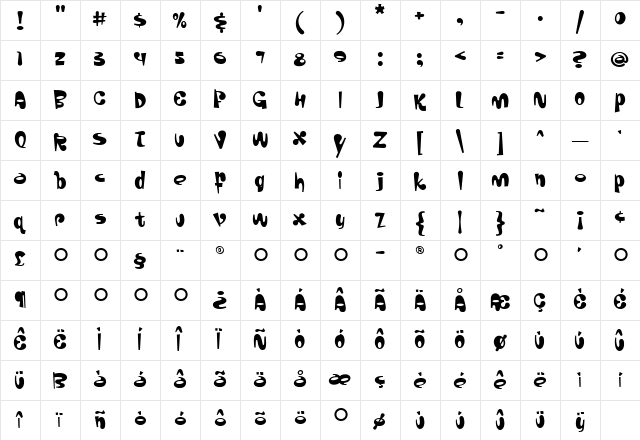
Roundhouse Medium
Design Context for Roundhouse Typeface
Roundhouse softens its letterforms with rounded terminals, giving it an approachable, friendly quality that works well in consumer-facing and digital contexts.
Well-suited to UI design, mobile interfaces, and any brand that wants approachability without sacrificing clarity.
Font Pairing: Pairs well with a rounded or humanist sans for body copy, maintaining the friendly tone without relying on Roundhouse to carry extended reading.
Pro Tip: Use Roundhouse for UI elements, app interfaces, and anywhere a friendly, approachable tone needs to be maintained without sacrificing clarity.